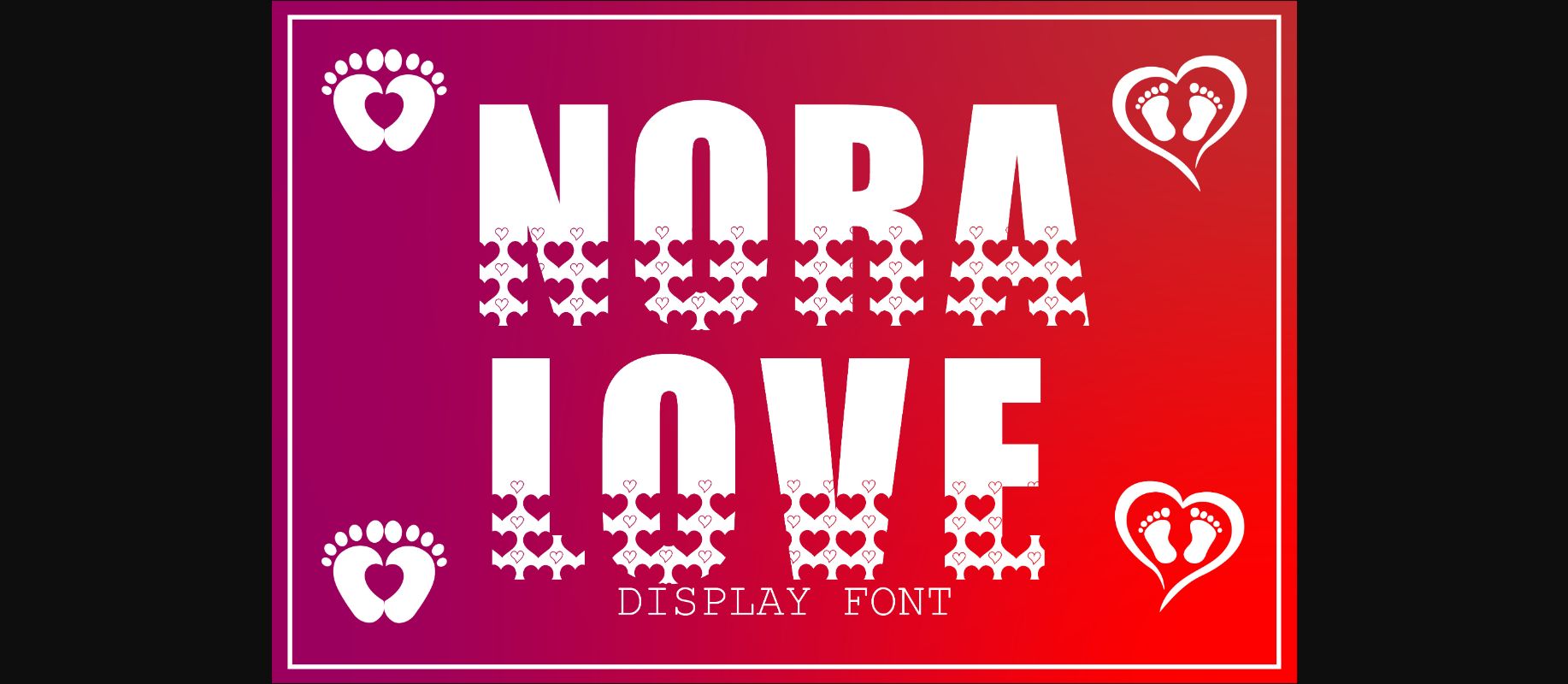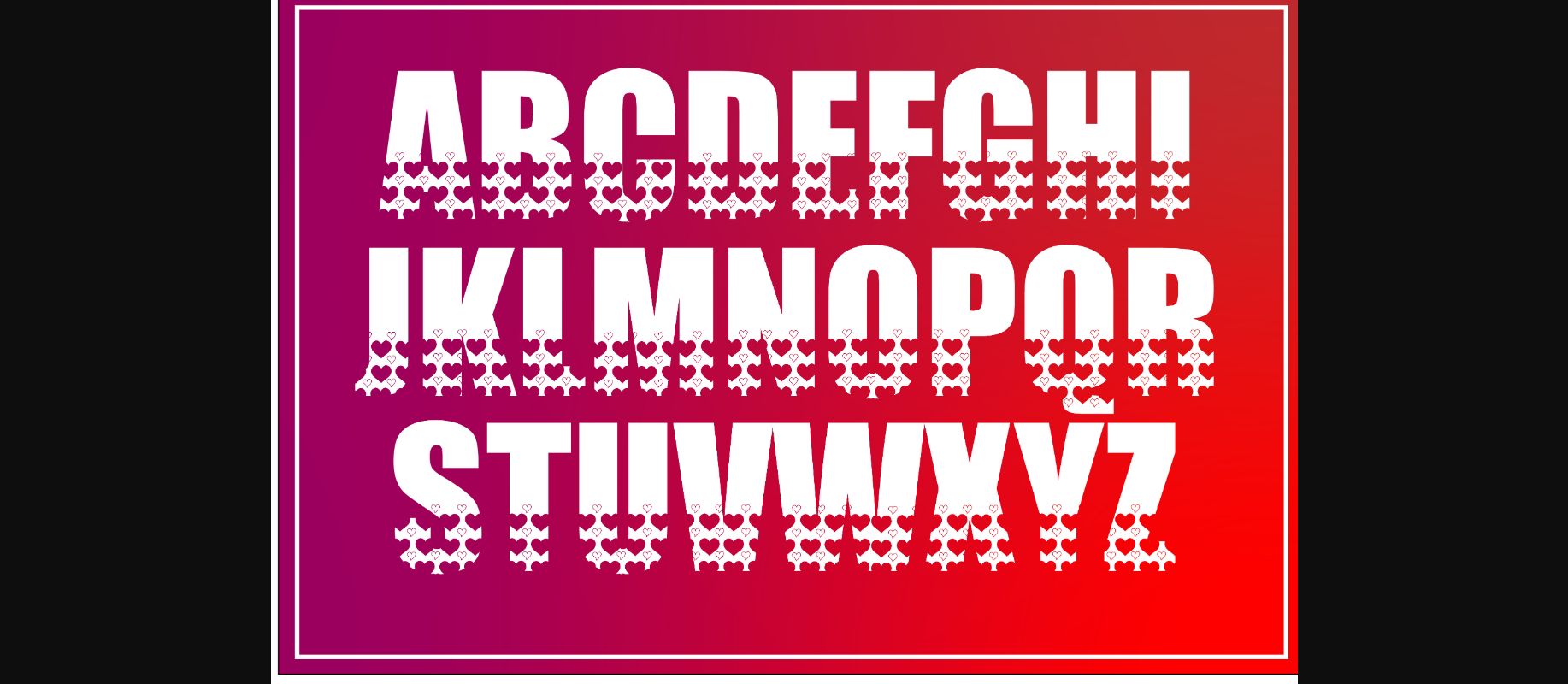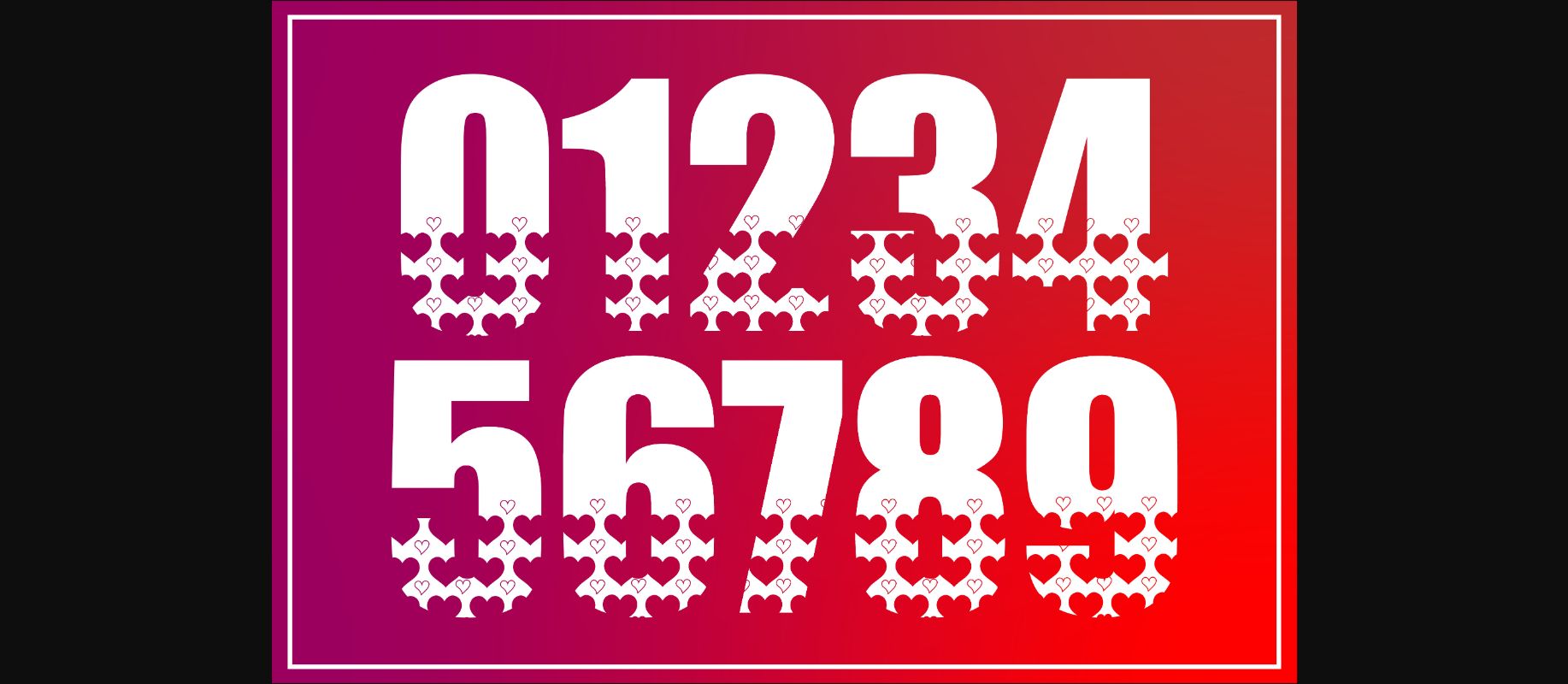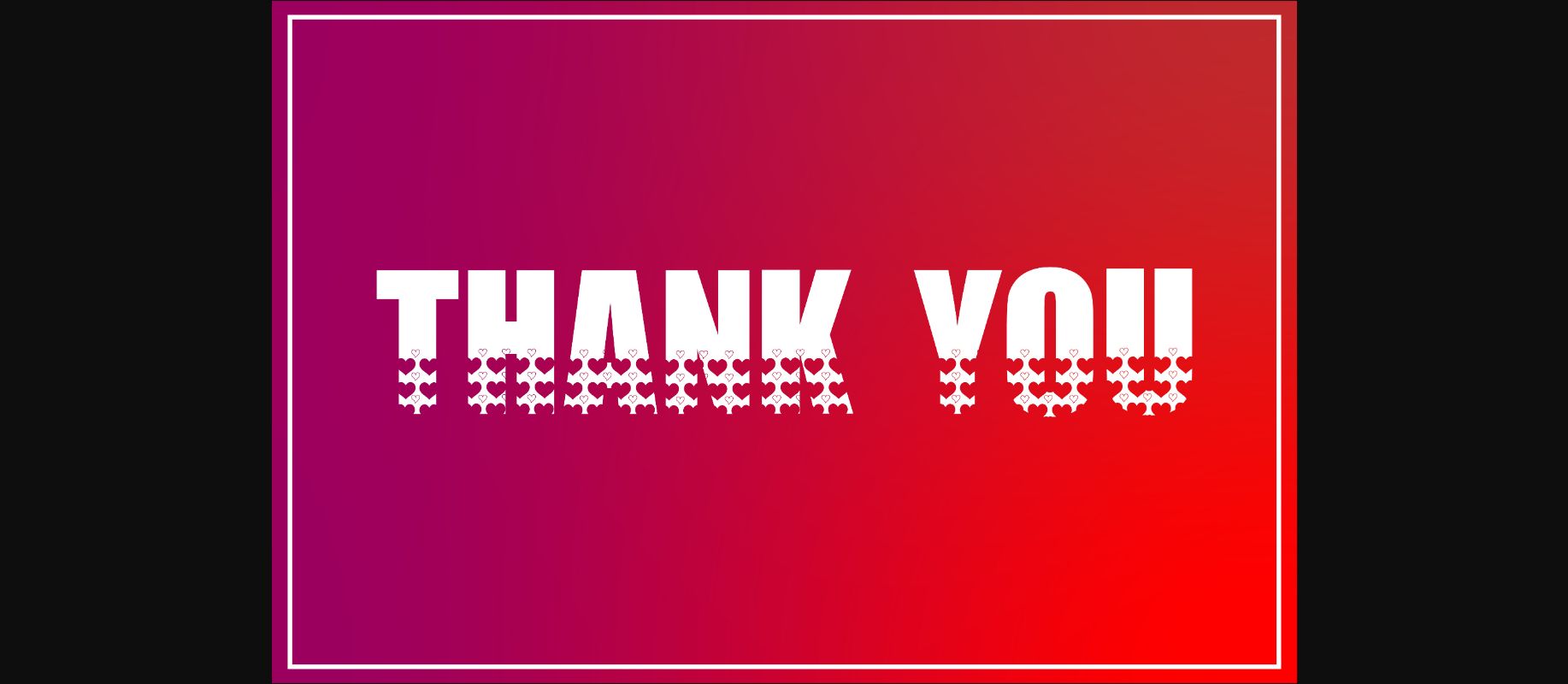
About Nora Love Font
Nora Love is a bold and incredibly elegant decorative font featuring lovely hearts as ornaments. Its original look will appeal to a wide range of crafty ideas, from letterheads and titles to stationery. Beautiful and unique, it will make a great asset to your font library!